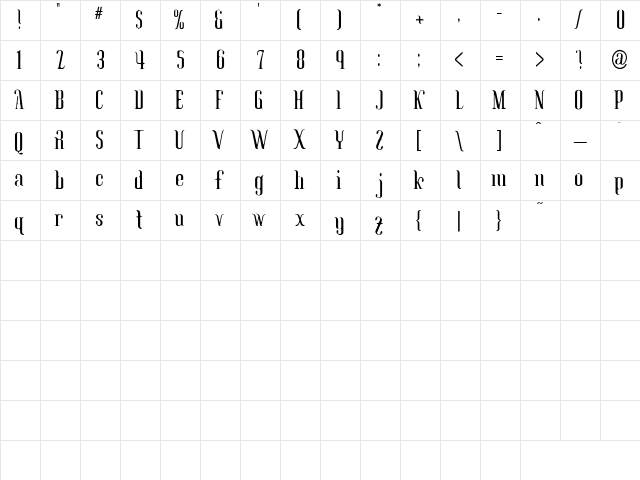
Solstice Regular Free Font
Solstice Regular
Foundry: Copr. [T- ], Chicago, IL Designer William Ford Smith
Design Context for Solstice
Solstice is a composed and adaptable typeface that performs quietly and consistently across a wide range of design contexts.
Who designed the Solstice Regular font?
This font was published by Copr. [T- ], Chicago, IL Designer William Ford Smith. Check the technical specs section for copyright and designer details.